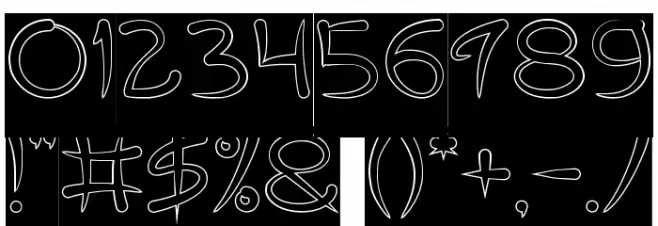
ExtraHotHollowInverse Font
ExtraHotHollowInverse Description
This font features a unique hollow design with an artistic flair, characterized by its bold, sweeping curves and sharp angles. The uppercase letters exhibit a dynamic and energetic style, while the lowercase letters maintain a consistent flow with a slightly more subdued appearance. The numerals and special characters follow the same hollow and bold aesthetic, providing a cohesive look across all glyphs. The font's playful yet structured design makes it stand out, offering a modern twist on traditional letterforms. Its distinct outline style gives it a three-dimensional effect, making it suitable for eye-catching displays.
A bold, hollow font with dynamic curves and sharp angles, offering a modern and artistic style from Uncategorized fonts.
- Proposed Projects: Ideal for branding, posters, and creative projects that require a bold and artistic touch.